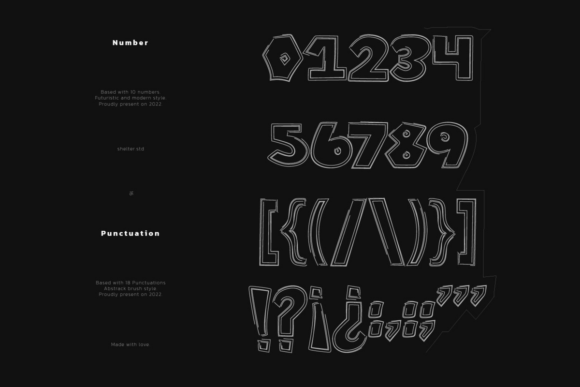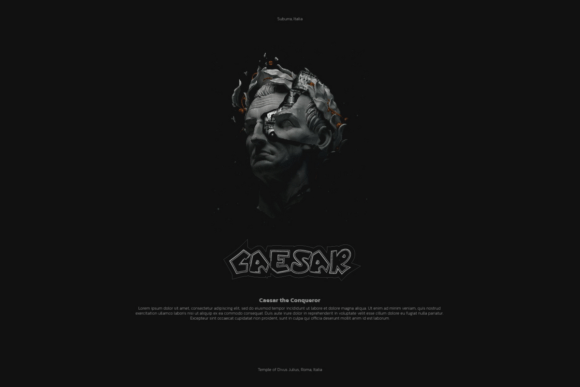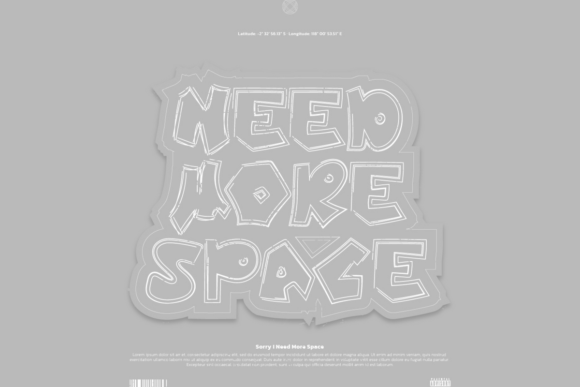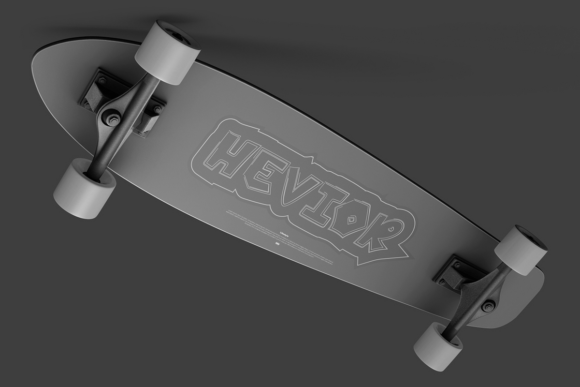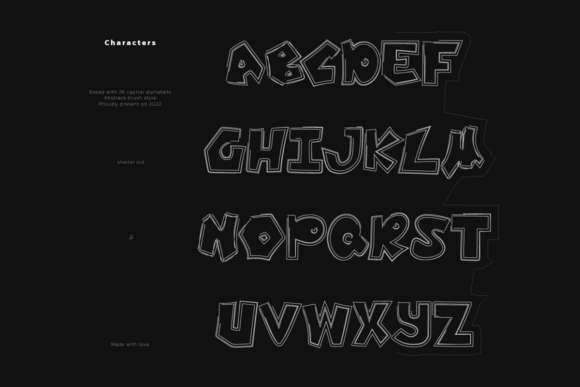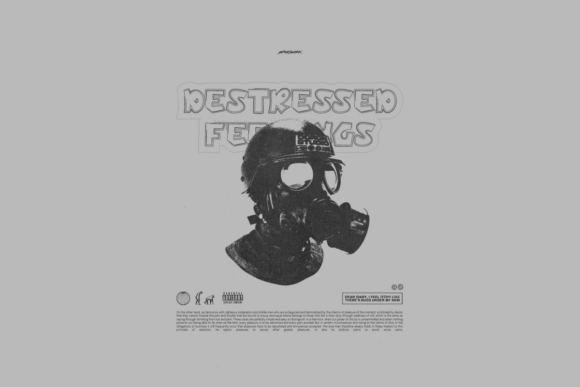
The Designer’s Delight: Exploring the Greda Font
Have you ever been in the middle of a design project, and suddenly, it all comes down to finding that perfect font? I recall working on a client’s invitation card design, and no matter how hard I tried, I just couldn’t find a font that captured the warmth and elegance I was going for. That’s when I stumbled upon the Greda font, and it completely transformed my design. In this article, we’ll dive into the world of Greda, exploring its features, uses, and what makes it a fantastic addition to your design toolkit.
A Personal Review of Greda Font
As a designer, I’m always on the lookout for fonts that can elevate my work. Here’s my honest review of Greda:
What I Love About Greda ✨
- 💡 Unique Texture: Greda’s inspiration from wooden blocks gives it a distinct texture that’s both rustic and sophisticated.
- ✅ Versatility: This display font is perfect for a wide range of design projects, from invitation cards to social media posts.
- 🎨 Aesthetic Appeal: Greda’s elegant and dashing style can instantly make your designs more visually appealing.
While Greda is an excellent font, there are a few things to keep in mind:
- 🤔 Legibility at Small Sizes: As with many display fonts, Greda’s legibility may suffer when used at very small sizes. It’s best suited for headlines or titles.
- ⚠️ Overuse: While Greda is stunning, using it excessively in a single design can be overwhelming. Balance is key.
The Story Behind Greda Font
Greda was introduced in 2022 with a mission to bring a touch of elegance and uniqueness to designers’ work. Inspired by the natural texture of wooden blocks, Greda’s creator aimed to craft a font that would add warmth and character to any design. The result is a stunning display font that’s both beautiful and versatile.
Q: What is Greda font best used for?
A: Greda font is best used for designs that require a touch of elegance and uniqueness, such as invitation cards, social media posts, greeting cards, posters, and more.
Q: Is Greda suitable for body text?
A: While Greda can be used for body text, it’s primarily designed as a display font. Its legibility at smaller sizes may be limited, making it more suitable for headlines and titles.
Q: Does Greda support OpenType features?
A: Yes, Greda supports OpenType features, allowing you to explore a range of glyphs and stylistic alternates to enhance your design.